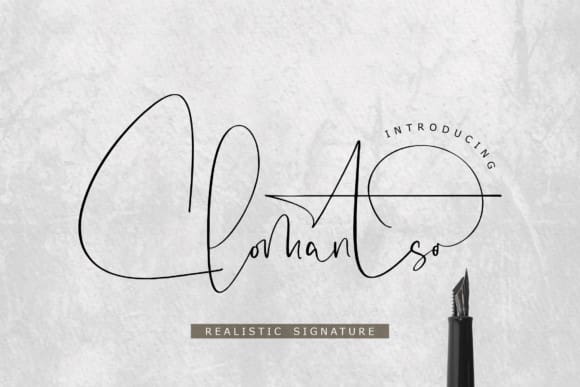
Clomantso Signature Font
Clomantso Signature Font is a classy, realistic signature script font. Stylish, graceful, and flowing, this font will definitely elevate the look of any of your beautiful creations while keeping them grounded and natural.